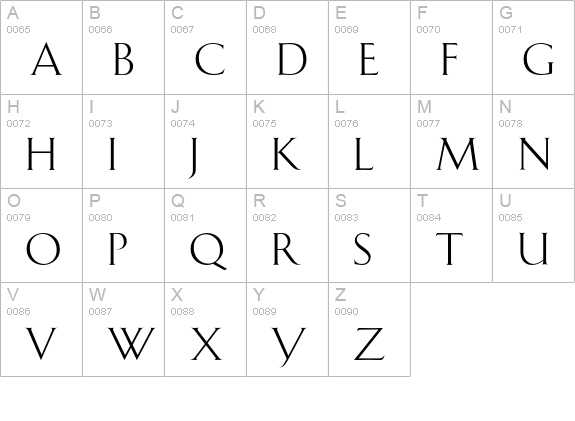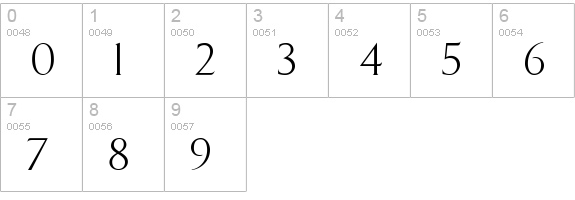
Schneidler-HTF-Titling font is a stunning display typeface that exudes elegance and sophistication. Its delicate serifs and refined letterforms make it the perfect choice for adding a touch of sophistication to any design project. With its timeless appeal, Schneidler-HTF-Titling font is sure to captivate and inspire. Whether used in headlines, logos, or invitations, this font brings a sense of class and charm that is hard to replicate. Every character has been meticulously crafted, resulting in a harmonious balance between classic aesthetics and contemporary design. What makes Schneidler-HTF-Titling font even more appealing is that it is freely available to download at FontsMarket.com. This means that designers, creatives, and enthusiasts alike can easily access and utilize this remarkable font in their projects without any financial burden. By downloading Schneidler-HTF-Titling font, you not only gain access to a top-quality typeface but also unlock a world of creative possibilities. Its versatility allows it to be used in a wide range of applications, from branding and advertising to editorial design and packaging. Whether you're looking to create a refined and elegant visual identity or simply elevate your designs to a whole new level, Schneidler-HTF-Titling font is the perfect choice. Its timeless beauty and freely available download make it a must-have for any designer's toolkit.